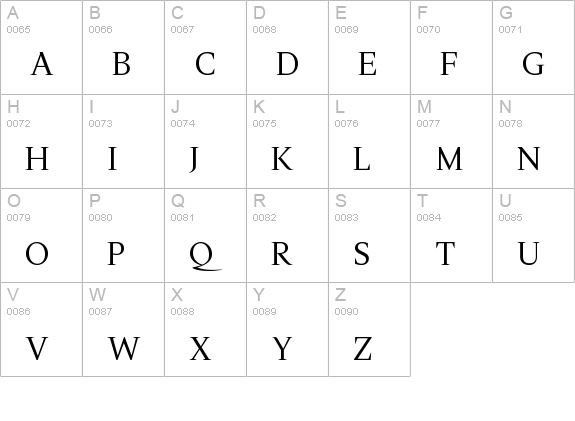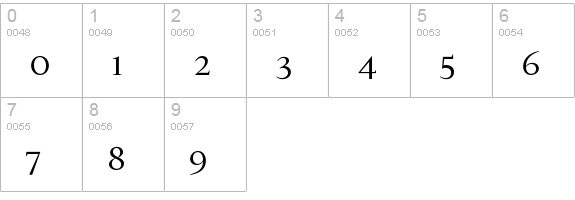
Luxury Text Roman Font Details
Indulge in the exquisite elegance of Luxury Text Roman font, a luxurious typeface that exudes sophistication and class. With its timeless serifs and graceful curves, this font is perfect for adding a touch of refinement to your designs. Whether you're working on a high-end branding project or creating elegant invitations, Luxury Text Roman will elevate your work to new levels of sophistication. The best part? Luxury Text Roman font is completely free to download at FontsMarket.com. That's right, you can now access this premium font without any cost, making it accessible to designers and creatives everywhere. Don't miss out on the opportunity to enhance your projects with the unparalleled beauty of Luxury Text Roman font. Download it today and make a statement with your design work.